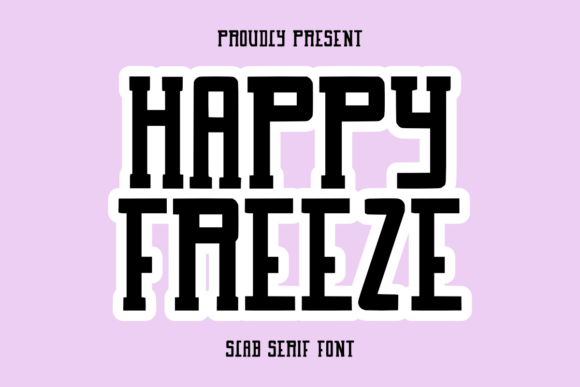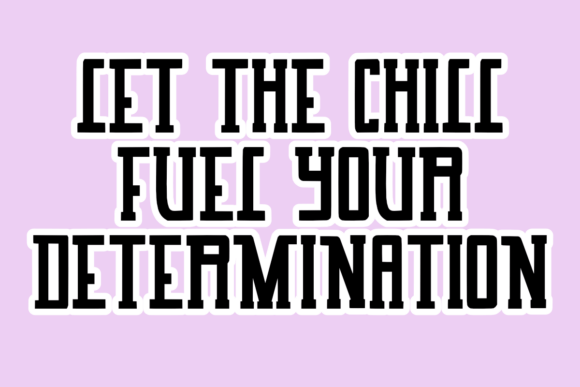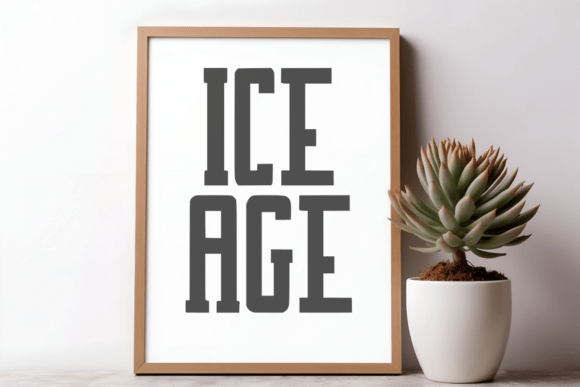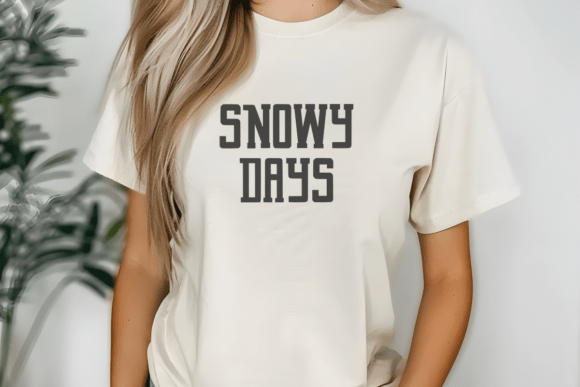
Happy Freeze Font
About the Happy Freeze Font
Let us introduce you to Happy Freeze Font, where timeless design meets modern craftsmanship. Happy Freeze is a bold slab serif font with a blocky, retro feel and fun personality. Its thick strokes and squared-off serifs give it a strong presence, while the rounded corners add a playful touch. Great for headlines, vintage posters, product packaging, and playful branding, this font brings a cool, confident energy to any design.
Happy Freeze excels in headlines, short titles, and branding applications where a bold, retro aesthetic is desired. Its strong presence makes it ideal for packaging design, particularly for products targeting a younger demographic or those with a vintage or playful brand identity. However, its weight and blocky nature make it less suitable for body text or UI elements requiring high readability.
Consider pairing Happy Freeze with a clean sans-serif like Open Sans for a balanced contrast, or a more playful script font like Pacifico for a heightened sense of fun. For a more sophisticated feel, a geometric sans-serif such as Futura could offer a modern counterpoint to its retro vibe.
The font’s core personality is confident and playful, conveying a sense of retro cool without being overly nostalgic. It’s best suited for brands that are bold, energetic, and slightly irreverent.
Happy Freeze Font Usage Examples
Happy Freeze Font Example